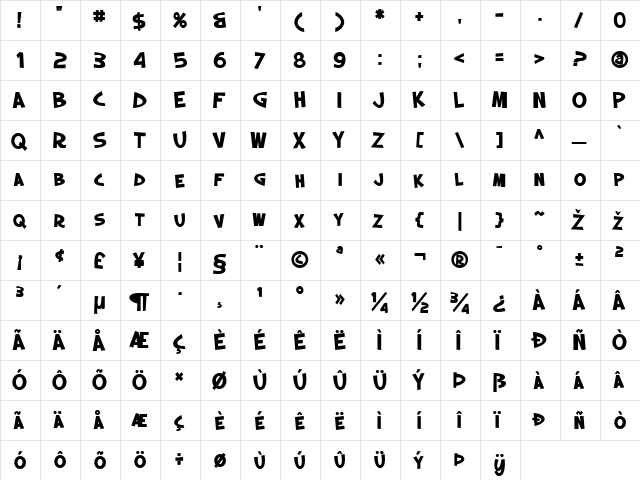
SF Slapstick Comic SC Bold
Bold · ShyFoundry Derek Vogelpohl ·
Design Context for SF Slapstick Comic SC Typeface
SF Slapstick Comic SC trades formality for fun, with bouncy, characterful letterforms that bring warmth and energy to any project.
Well-suited to food and beverage brands with personality, educational materials, and fun-forward identities.
Font Pairing: Pairs well with a rounded or humanist sans for body copy, maintaining the friendly tone without relying on SF Slapstick Comic SC to carry extended reading.
Pro Tip: Use SF Slapstick Comic SC at larger display sizes where its expressive character can land. Pair with a clean, simple sans for body copy to maintain readability.